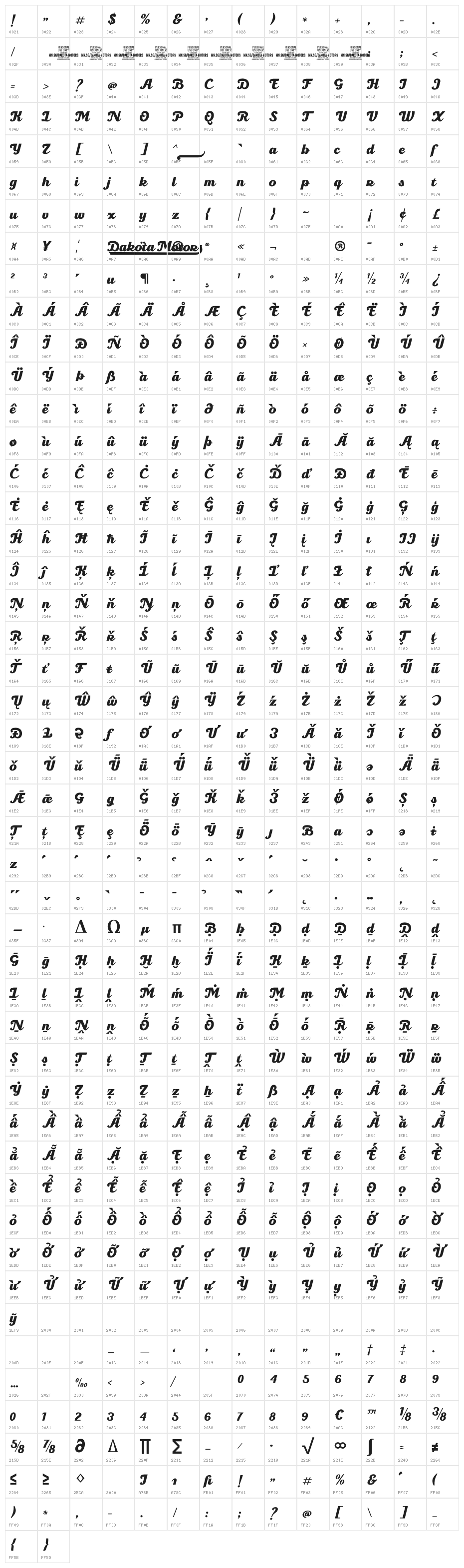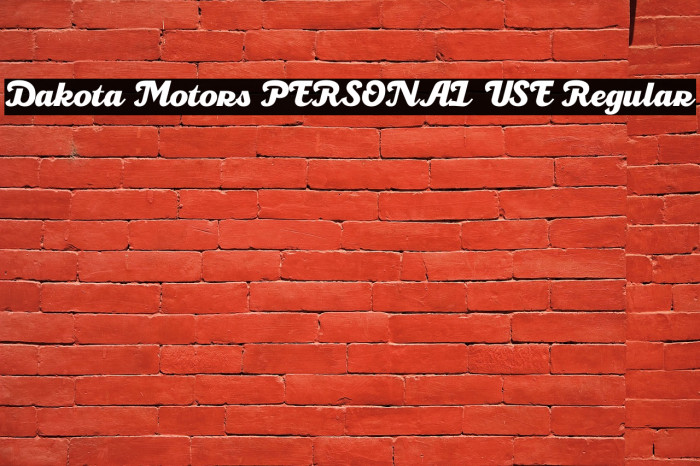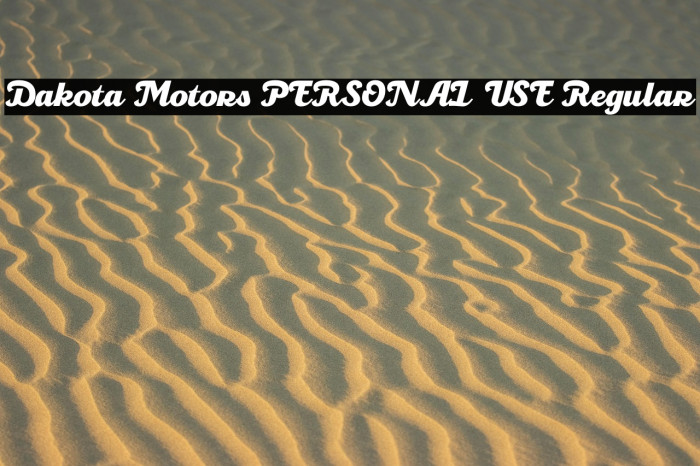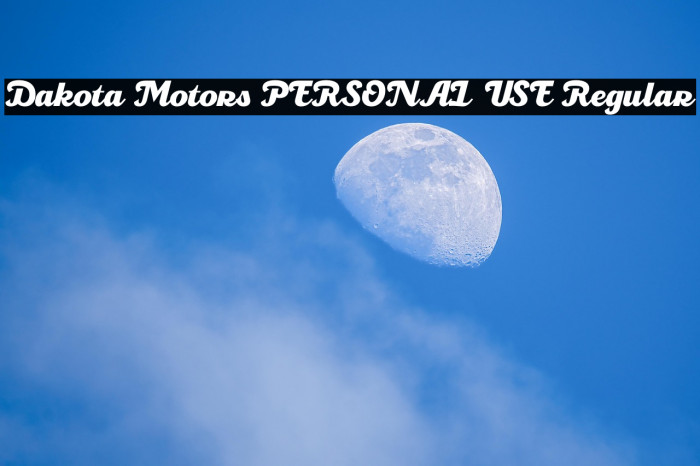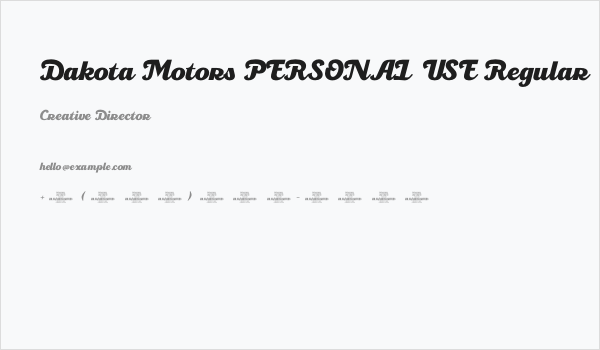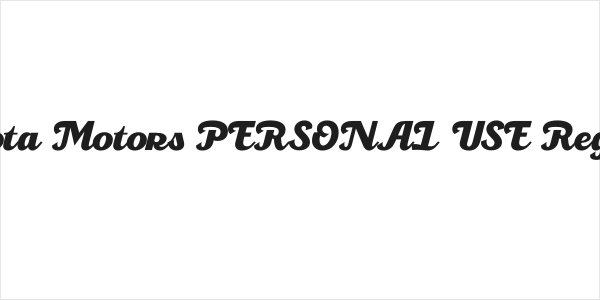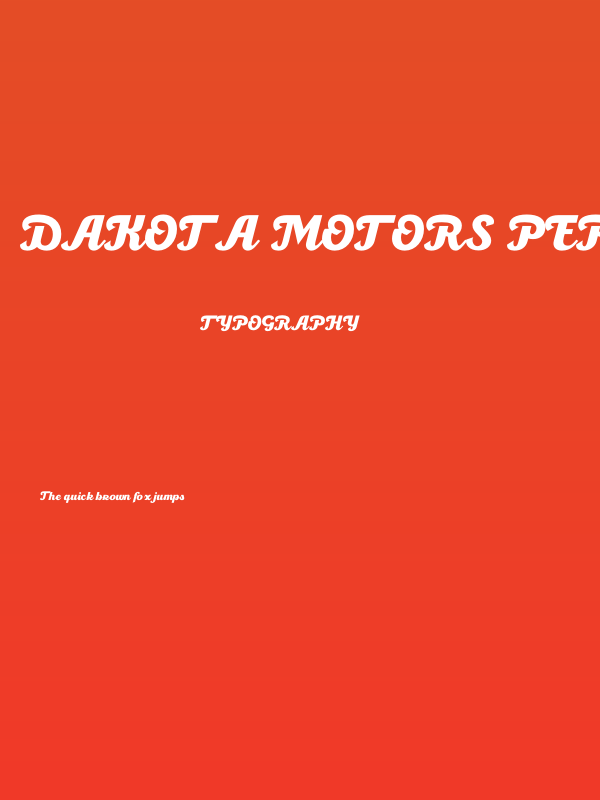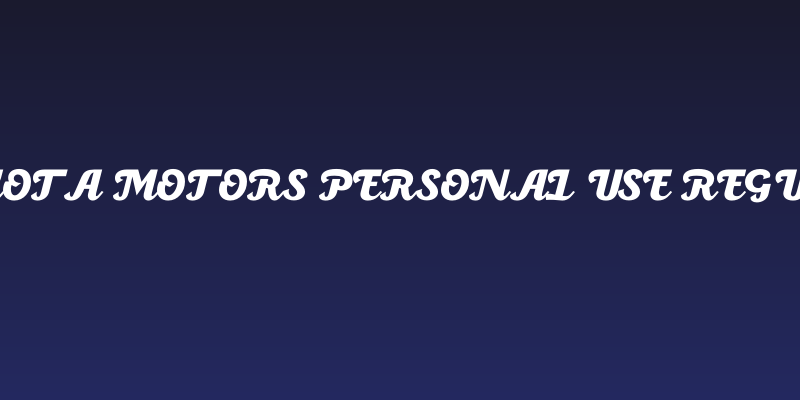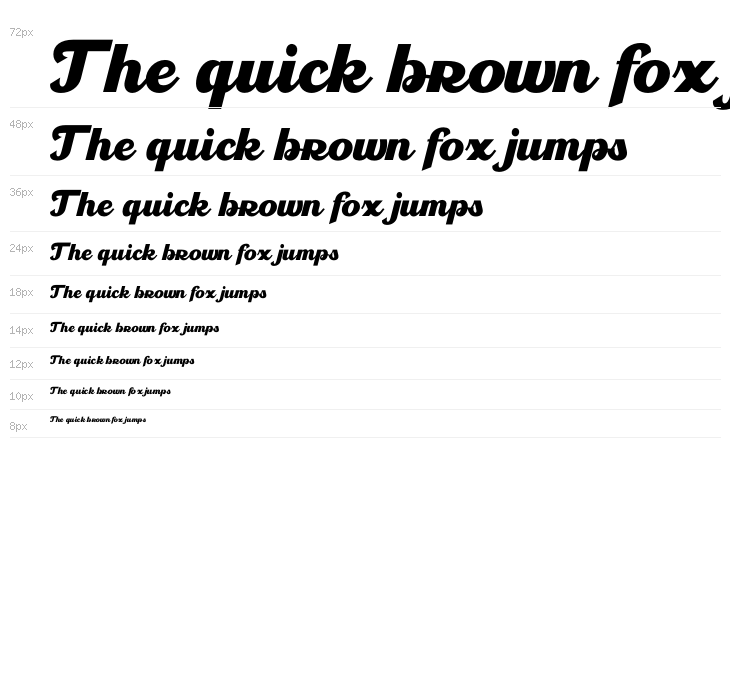
Dakota Motors PERSONAL USE Regular Font
Dakota Motors PERSONAL USE Regular Description
This font features a bold and dynamic script style with a strong presence. The letters are connected in a fluid manner, giving it a sense of motion and elegance. The uppercase letters are slightly more ornate, while the lowercase letters maintain a consistent flow. The strokes are thick and uniform, providing a robust appearance. The font includes a full set of uppercase and lowercase letters, numbers, and a variety of special characters, making it versatile for different design needs.
| Proposed Projects | Ideal for branding projects, logo design, invitations, and signage where a bold, elegant script is desired. |